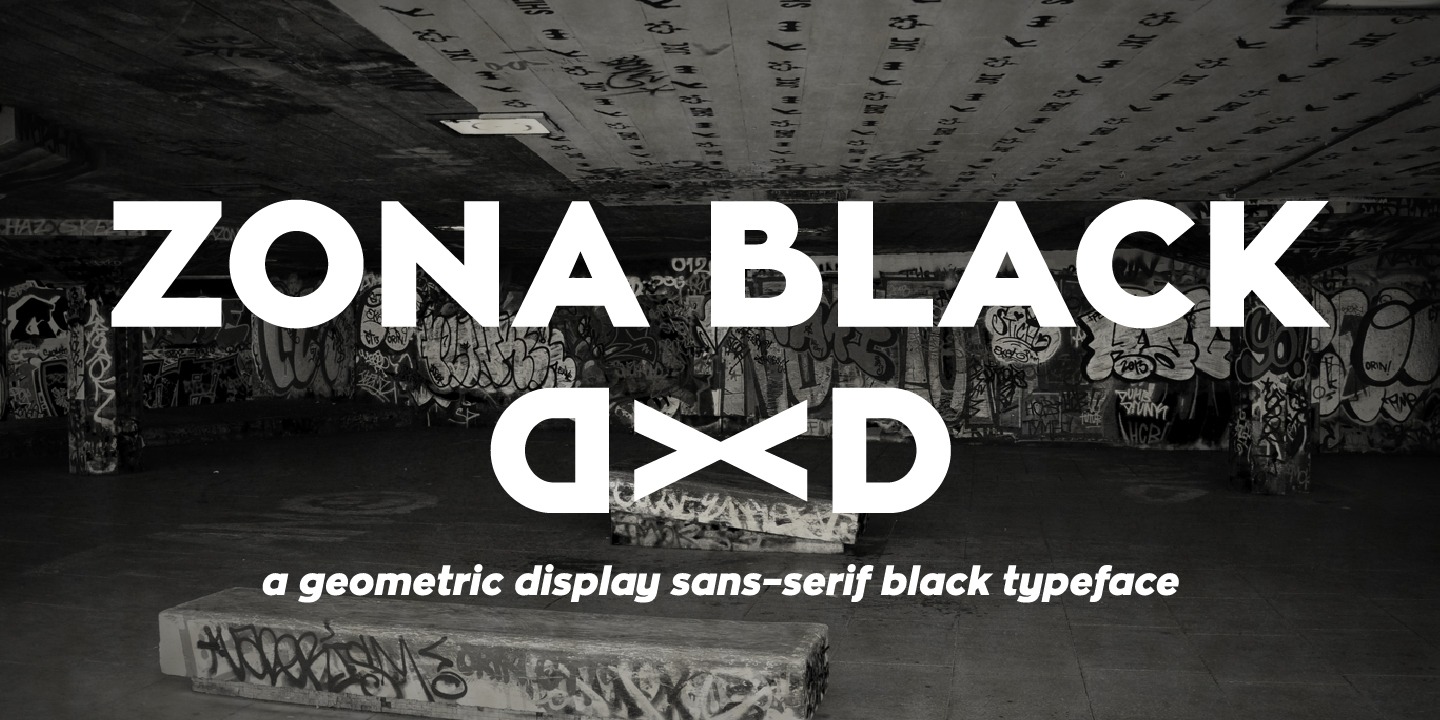
Zona Black – Geometric Sans Serif Font
Zona Black – Geometric Sans Serif Font is a stylish typeface that enhances visual appeal and works effortlessly in many design contexts. Zona Black is a geometric sans–serif display black typeface. It was inspired by typography from 1920’s posters featuring clean lines and some quite distinct glyphs such as the uppercase B and the H. Despite being black it’s tall x–height makes Zona quite legible even in smaller sizes.